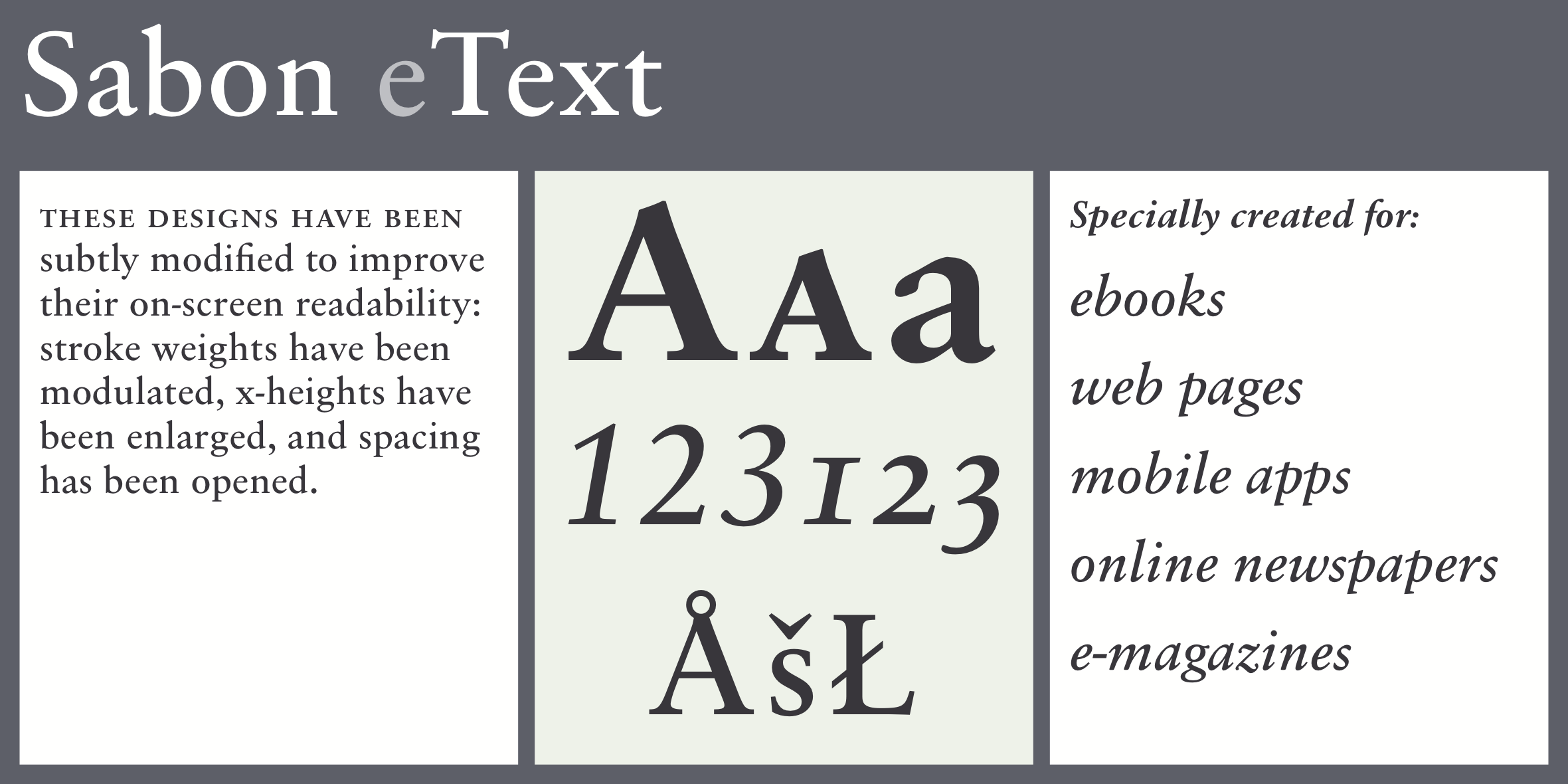
The Sabon eText Font is incredibly versatile, making it an outstanding choice for a wide range of digital design projects where superior readability and a classic yet contemporary aesthetic are paramount. Imagine it providing a refined and effortlessly legible experience for long-form articles in e-magazines, ensuring comfortable reading for e-books on various devices, or giving a polished and authoritative look to online academic papers. It's also perfect for crafting user-friendly website content, designing intuitive app interfaces, or enhancing the legibility of digital publications where sustained reading is key. Its meticulously balanced proportions, clear serifs, and optimized forms make it ideal for anything that requires excellent screen readability across different platforms and resolutions.
What makes the Sabon eText Font so exciting is its masterful adaptation of a timeless classic for the demands of the digital age. It's not just a typeface; it’s a sophisticated tool engineered for optimal performance on screens, providing clarity without sacrificing elegance. Its carefully designed letterforms, with thoughtful adjustments for pixel rendering and various screen sizes, contribute to its superb legibility, even at smaller digital text sizes. In a world increasingly dominated by digital consumption, this font stands out by offering a harmonious balance between a revered traditional aesthetic and cutting-edge digital functionality, ensuring your message is not only seen but truly absorbed with ease and visual comfort.
The Sabon eText Font family typically includes a comprehensive range of weights and styles to provide maximum flexibility for designers in digital environments. While specific variations can differ, you can often expect to find regular, italic, bold, and bold italic versions, all optimized for screen display. This essential array of options allows for sophisticated typographic hierarchies and ensures the font can adapt seamlessly to various digital design needs, from subtle footnotes to prominent subheadings, offering unparalleled versatility for web, app, and e-publishing applications.